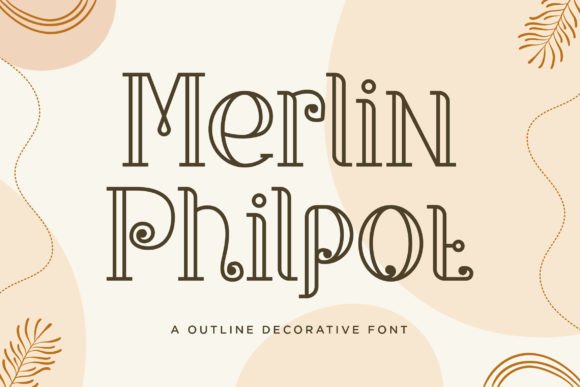
If your creative designs are suffering from a lack of originality, then you need to download the Merlin Philpot Font by TypeFactory. This decorative font will give your work a playful and magical touch that will make it stand out from the rest.
Whether you're creating posters, fliers, or any other type of marketing material, this font will help you capture attention and make a lasting impression. It's perfect for adding a touch of whimsy to your work, and it's sure to put a smile on the faces of your readers.